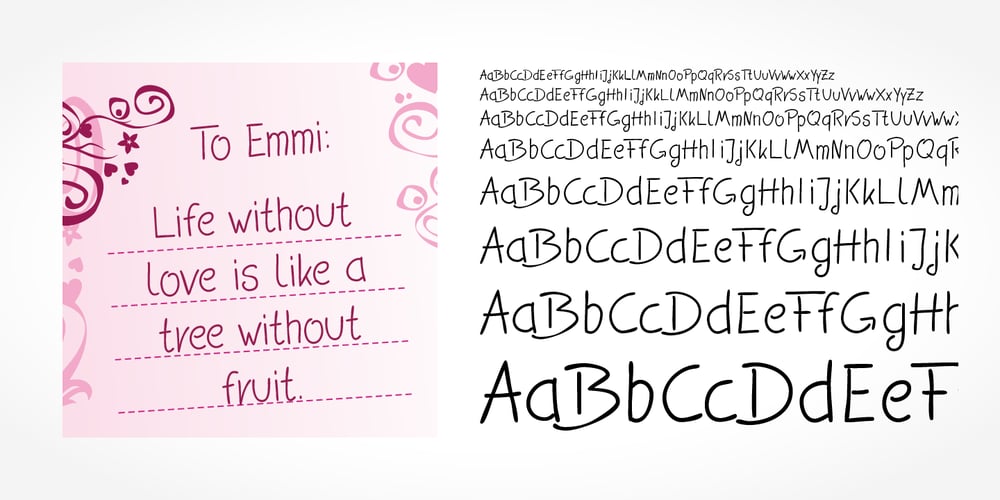
Emmi Handwriting Pro Font Family was designed by published by SoftMaker. Emmi Handwriting Pro contains 1 styles and family package options. Digitized handwriting fonts are a perfect way to give documents the “very special touch”. Invitations look simply better when handwritten than when printed in bland Arial or Times New Roman. Short handwritten notes look authentic and appealing. There are numerous occasions where handwritten text makes a better impression. Emmi Handwriting Pro is a beautiful typeface that mimics true handwriting closely. Use Emmi Handwriting Pro to create stunningly beautiful designs easily. This typeface comes with many pre-made ligatures and alternative characters for sophisticated typography – all easily accessible as OpenType features. A “random” feature even allows for automated random switching between variations of the same character, resulting in type that looks authentically handwritten.